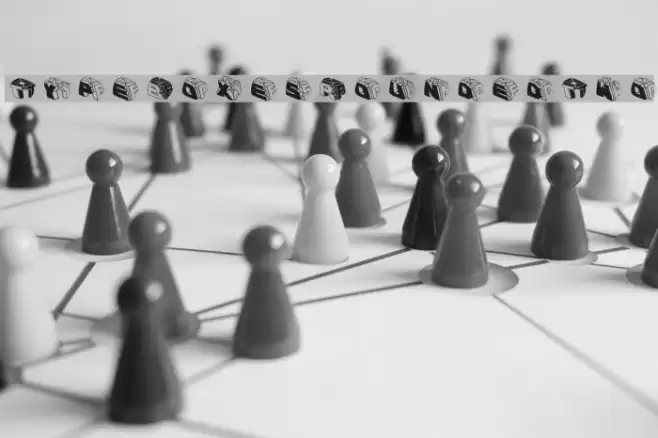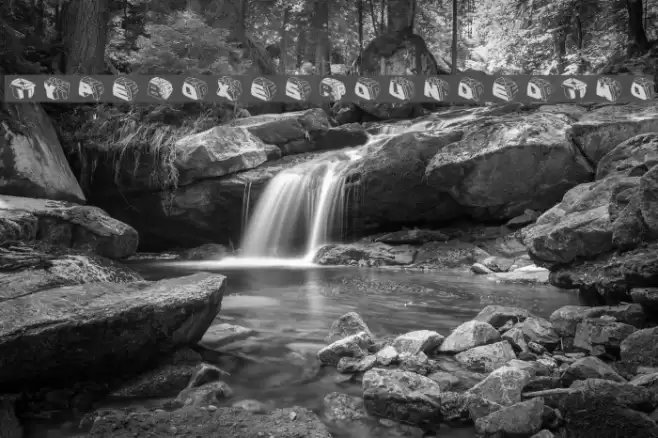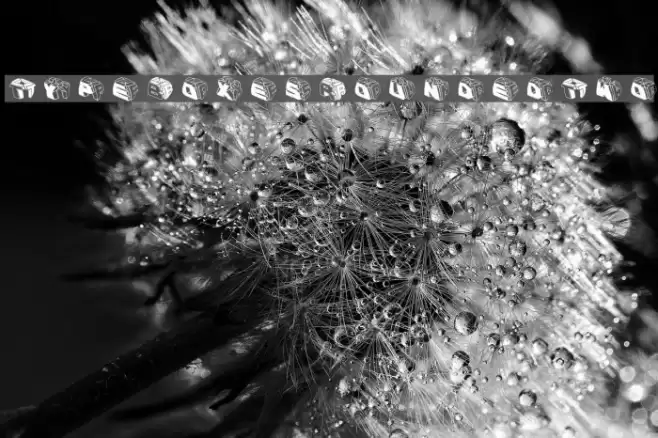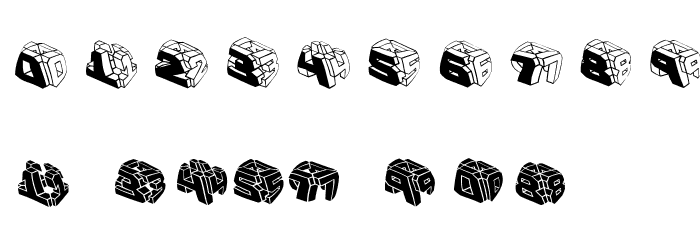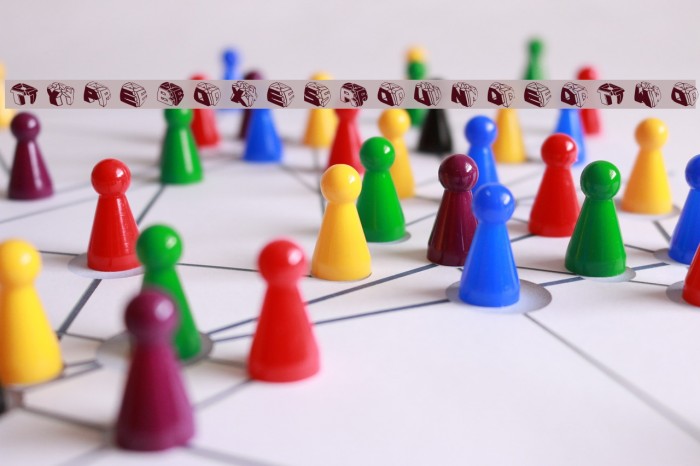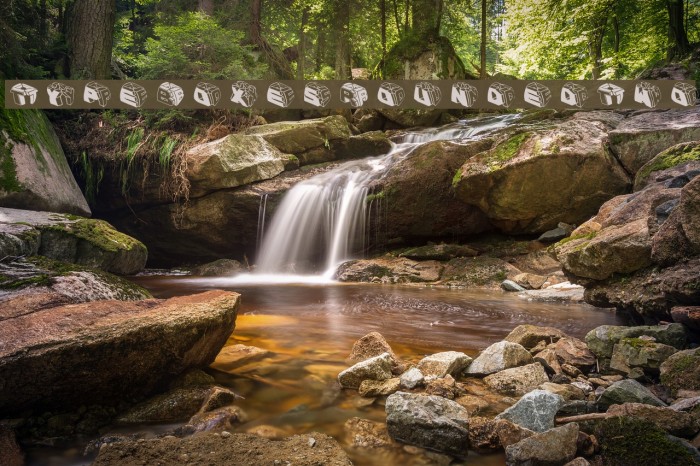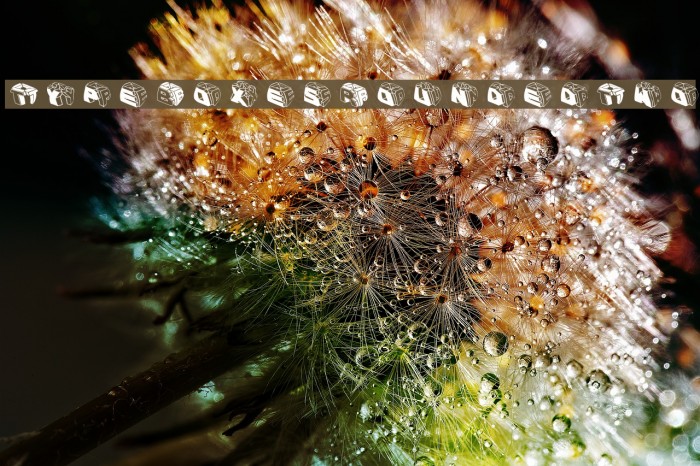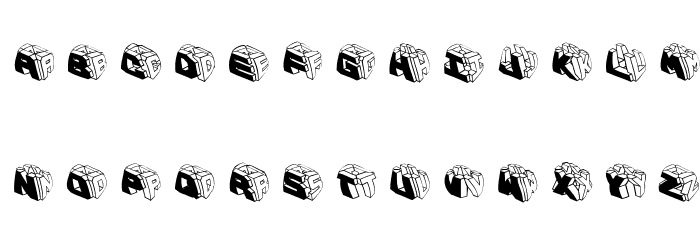
TypeBoxesRoundedTwo Font
TypeBoxesRoundedTwo Description
This font features a unique, three-dimensional box-like design where each character is encased in a rounded, cube-like structure. The letters are bold and have a distinct geometric style, with each character appearing as if carved into a block. The design is playful yet structured, offering a modern twist on traditional typography. The characters are consistent in their cubic form, providing a cohesive look across the alphabet. This font is particularly striking due to its bold presence and the illusion of depth created by the three-dimensional effect.
A bold, three-dimensional box-like font with rounded edges and a geometric style from Uncategorized fonts.
- Proposed Projects: Ideal for creative projects such as posters, logos, and video game graphics where a modern and playful aesthetic is desired.
- Use Case: Logos, Posters, Video game graphics